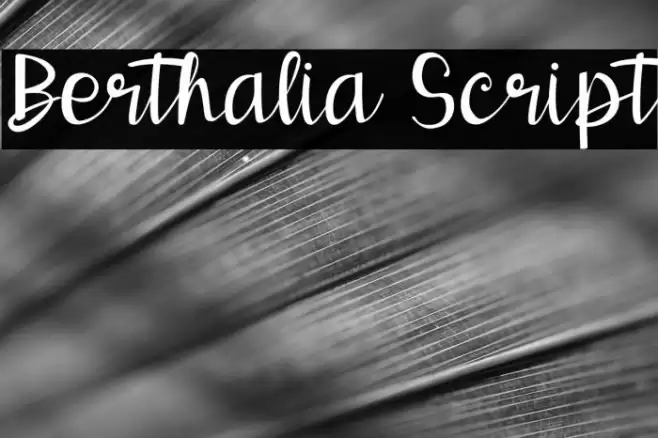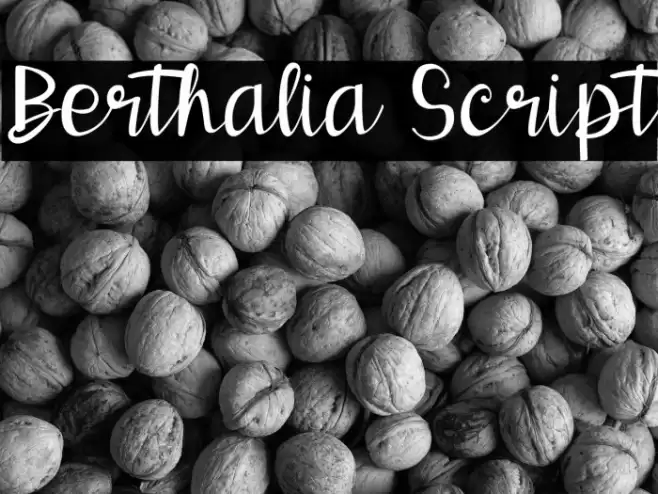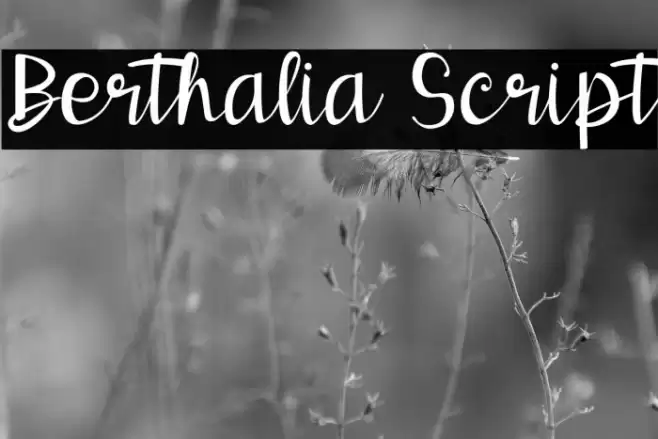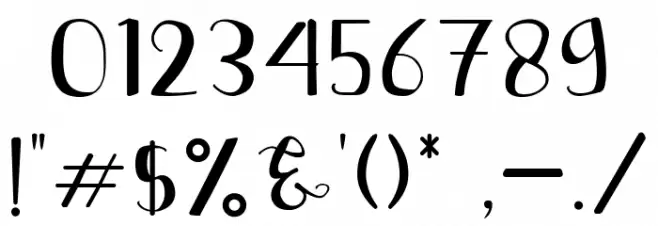
Berthalia Script Font
Berthalia Script Description
This font features a charming and fluid script style, characterized by its elegant and flowing letterforms. The uppercase letters exhibit a graceful, cursive design with smooth curves and a consistent stroke width, while the lowercase letters maintain a harmonious balance with their slightly more compact and connected appearance. The numerals are designed to complement the overall script style, offering a cohesive look across all characters. Special characters are thoughtfully integrated, maintaining the font's aesthetic appeal. This font exudes a sense of sophistication and creativity, making it ideal for projects that require a personal and artistic touch.
A charming and fluid script font with elegant, flowing letterforms from Regular fonts.
- Proposed Projects: Ideal for wedding invitations, greeting cards, branding, and artistic projects.
- Overall Style: Elegant, Artistic
- Use Case: Logos, Invitations, Artistic projects